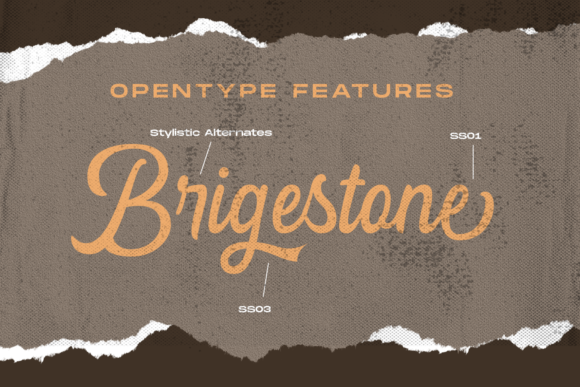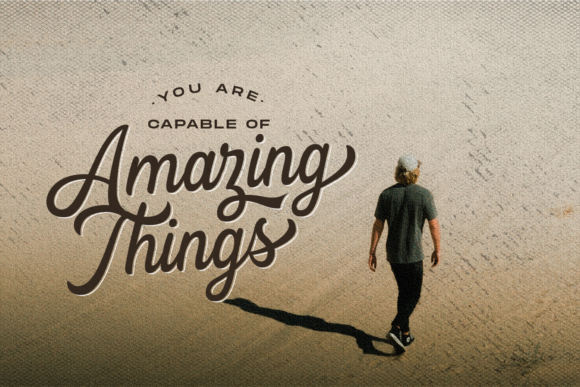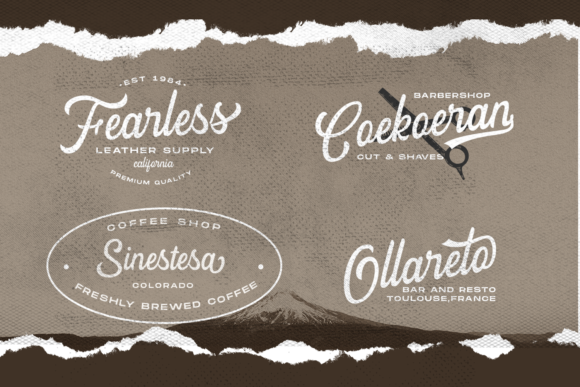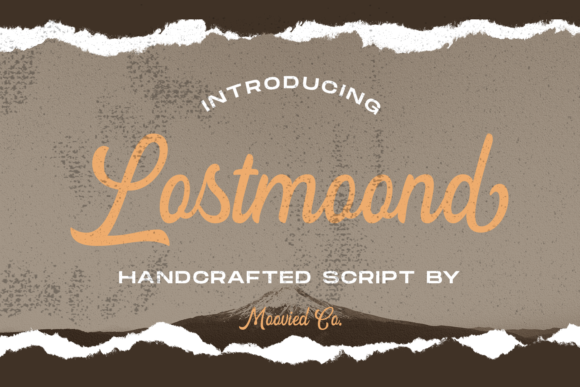
Introduction to Lostmoond Font
Lostmoond is a modern signature font.
Fall in love with its authentic feel and use it to create gorgeous wedding invitations, beautiful stationary art, eye-catching social media posts, and cute greeting cards .
Key Features of Lostmoond Font
Why Choose Lostmoond Font?
Lostmoond Font offers exceptional quality and versatility, making it a valuable addition to your design toolkit. Whether you’re creating for personal projects or commercial use, Lostmoond Font delivers professional results.